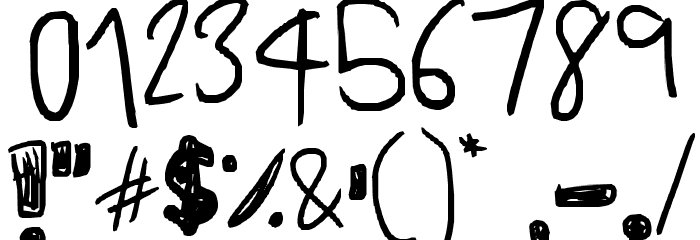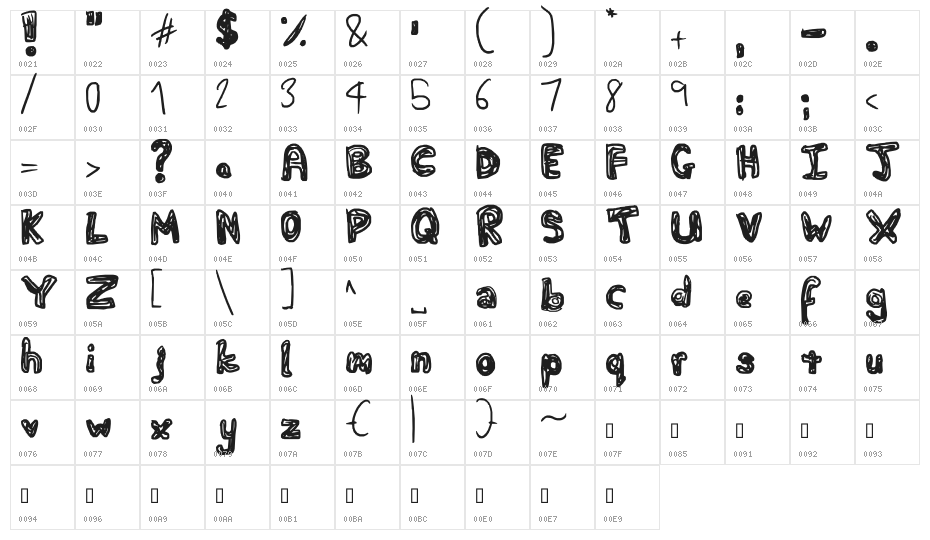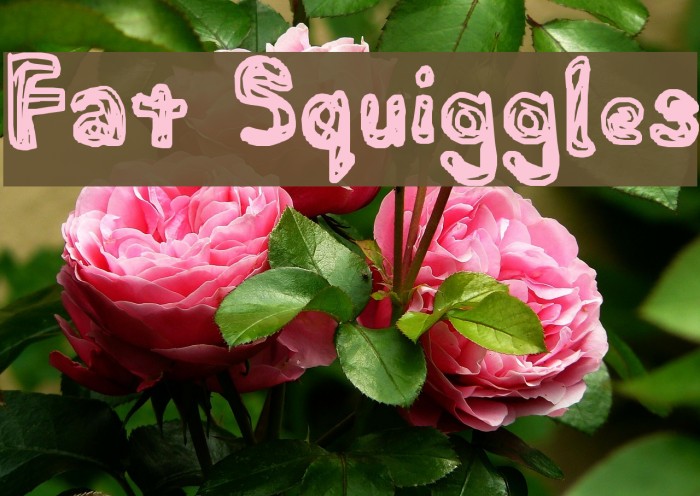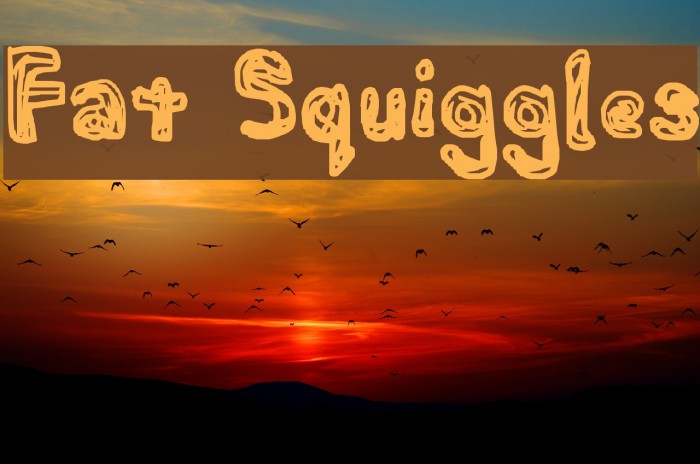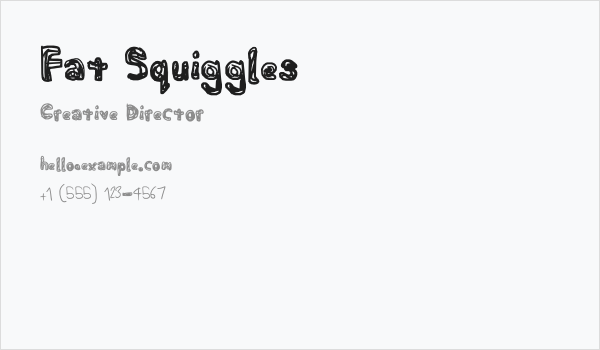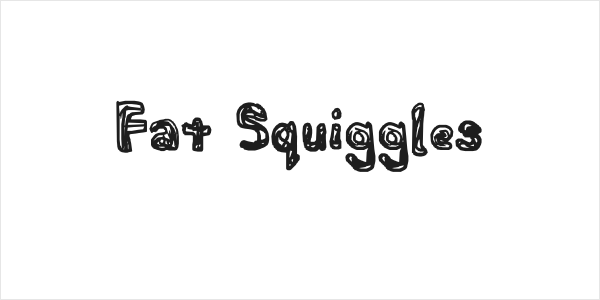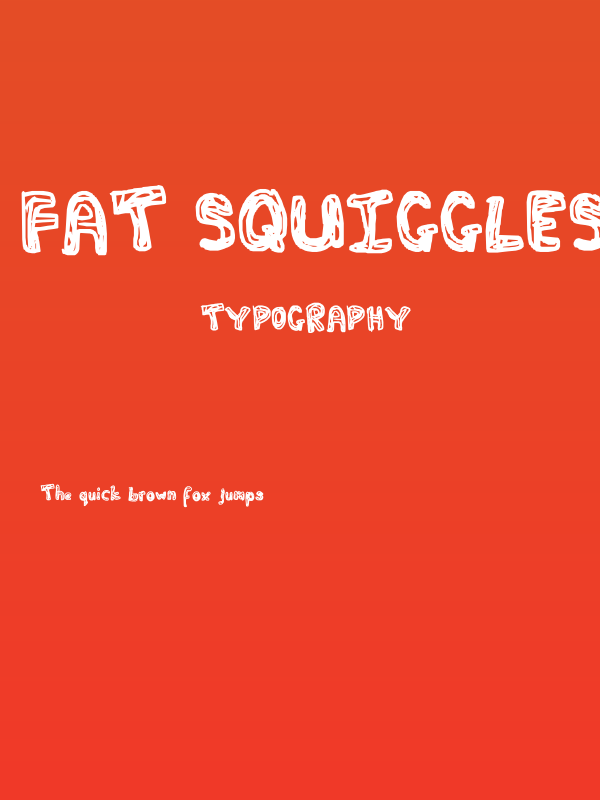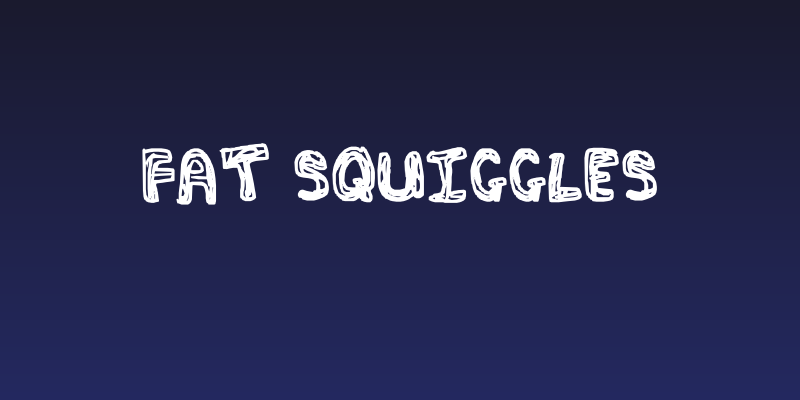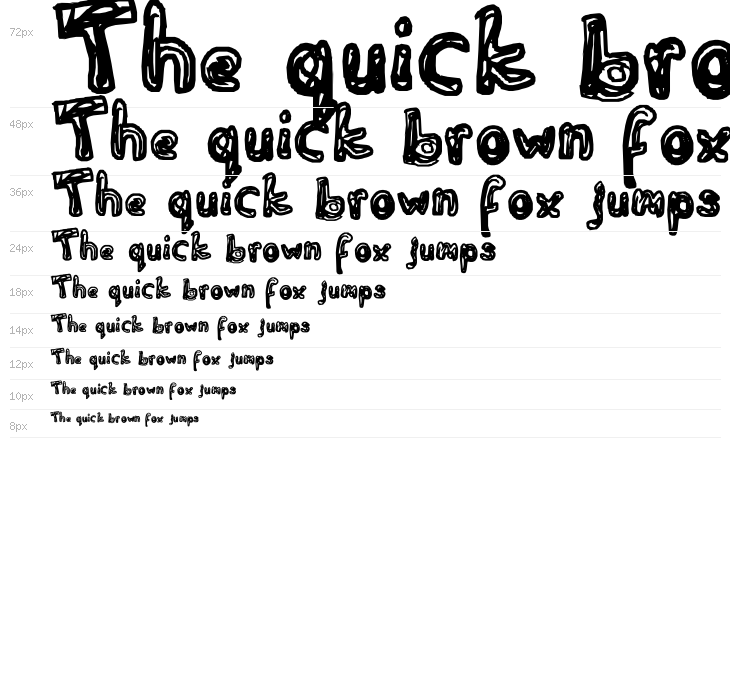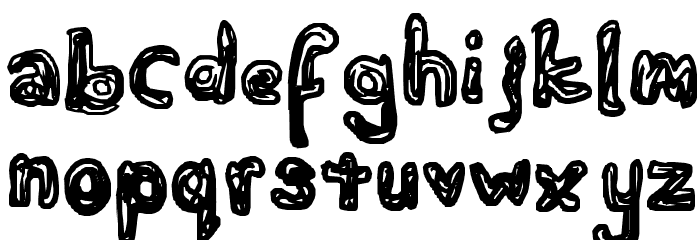
Fat Squiggles Font
Fat Squiggles Description
This font features a playful and bold design with a hand-drawn aesthetic. The characters are thick and rounded, giving them a whimsical and informal appearance. Each letter is uniquely crafted with uneven lines and exaggerated curves, creating a sense of movement and energy. The uppercase and lowercase letters maintain a consistent style, while the numbers and special characters follow the same playful theme. This font is perfect for projects that require a fun and lively touch, such as children's books, party invitations, or creative branding.
Proposed ProjectsIdeal for children's books, party invitations, creative branding, and playful designs.